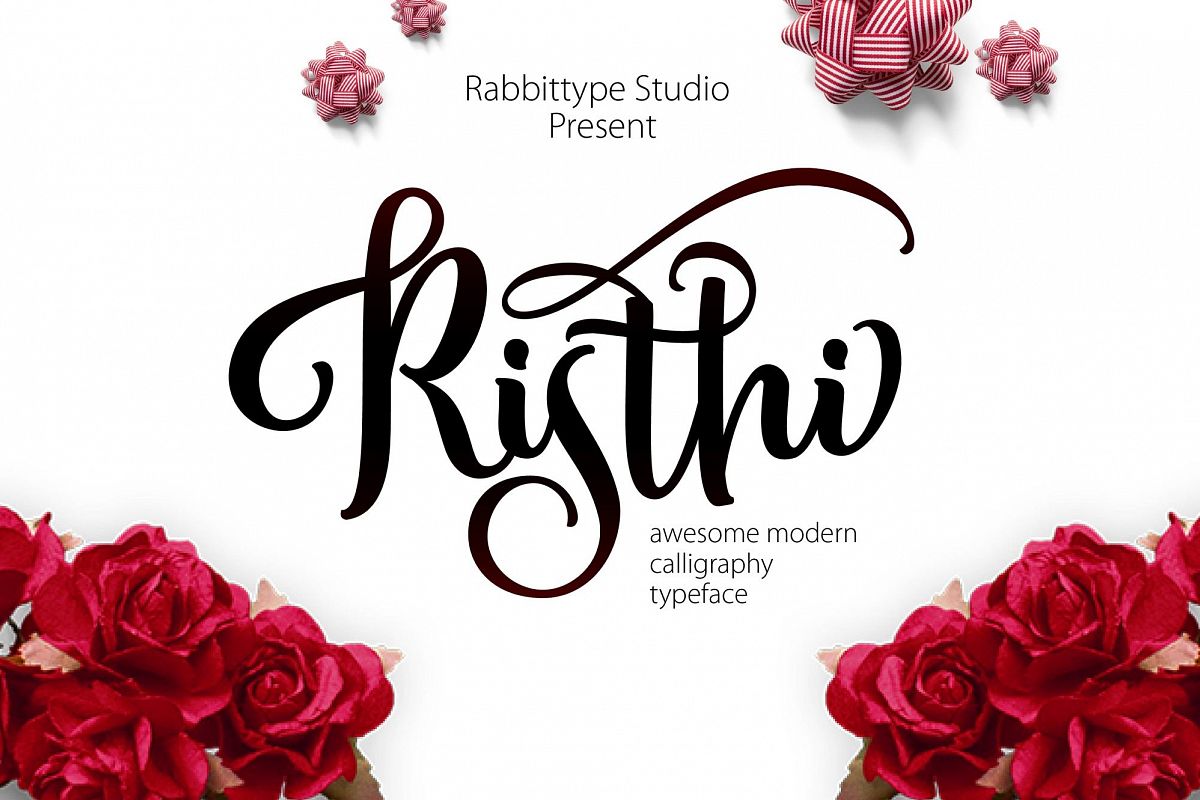
RISTHI Script
Risthi
hi Friends...... Welcome Risthi Script is handwritten stylish copperplate calligraphy fonts, combines from copperplate to contemporary typeface with a dancing baseline, classic and elegant touch. Can be used for various purposes.such as headings, signature, logos, wedding invitation, t-shirt, letterhead, signage, lable, news, posters, badges etc.Risthi Script including Standart Glyphs, alternates, ligatures, Stylistic Alternates and multiple language support.includes